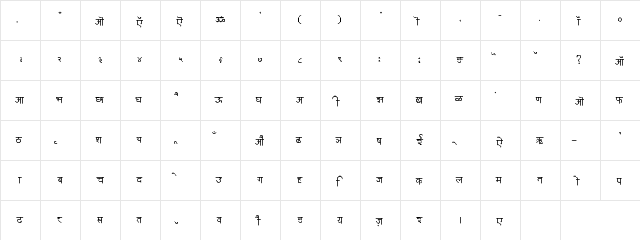
Devanagari Phonetic Regular
| Designer | kandryve |
Design Context for Devanagari Phonetic Typeface
Devanagari Phonetic is a composed and adaptable typeface that performs quietly and consistently across a wide range of design contexts.